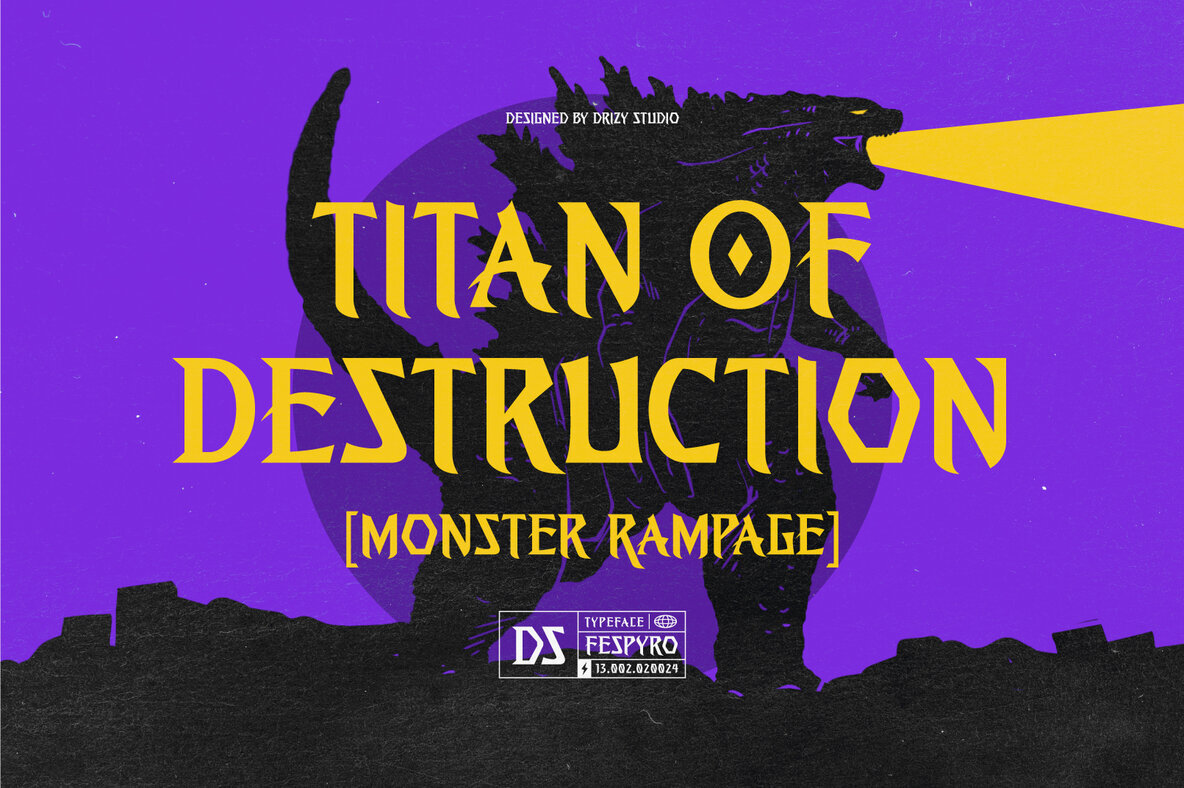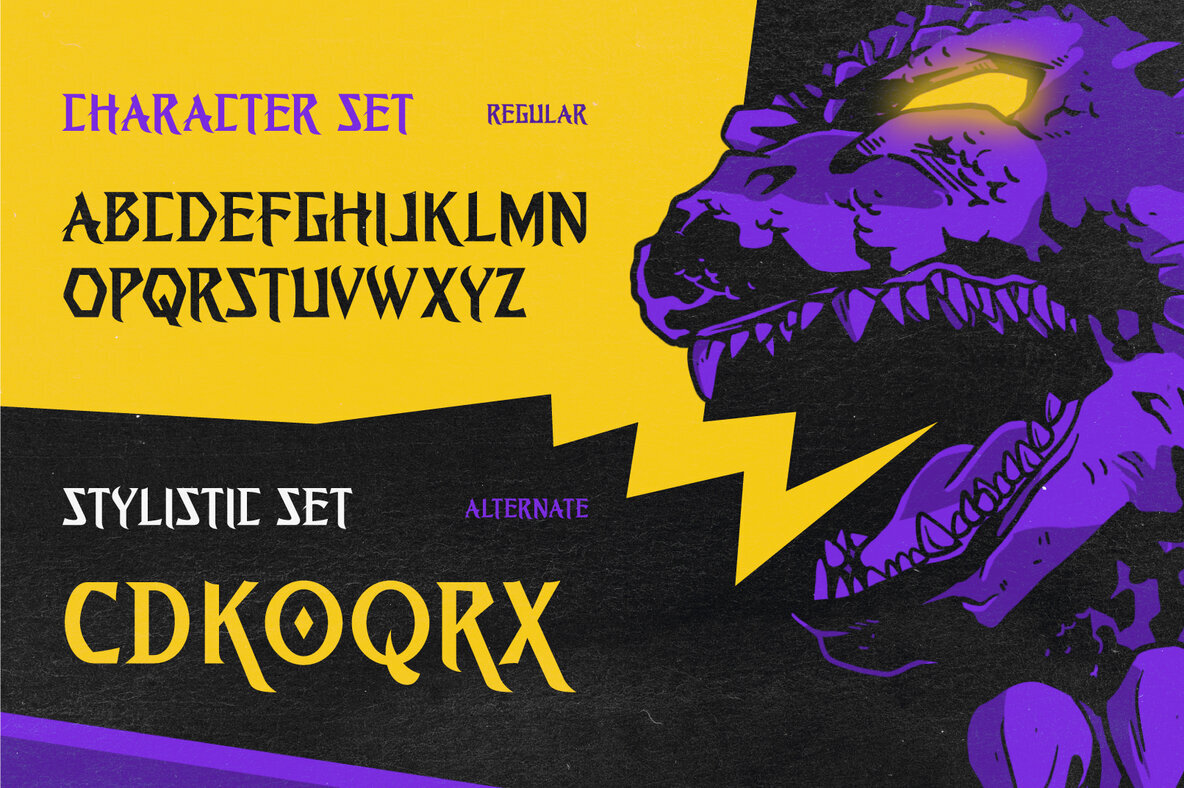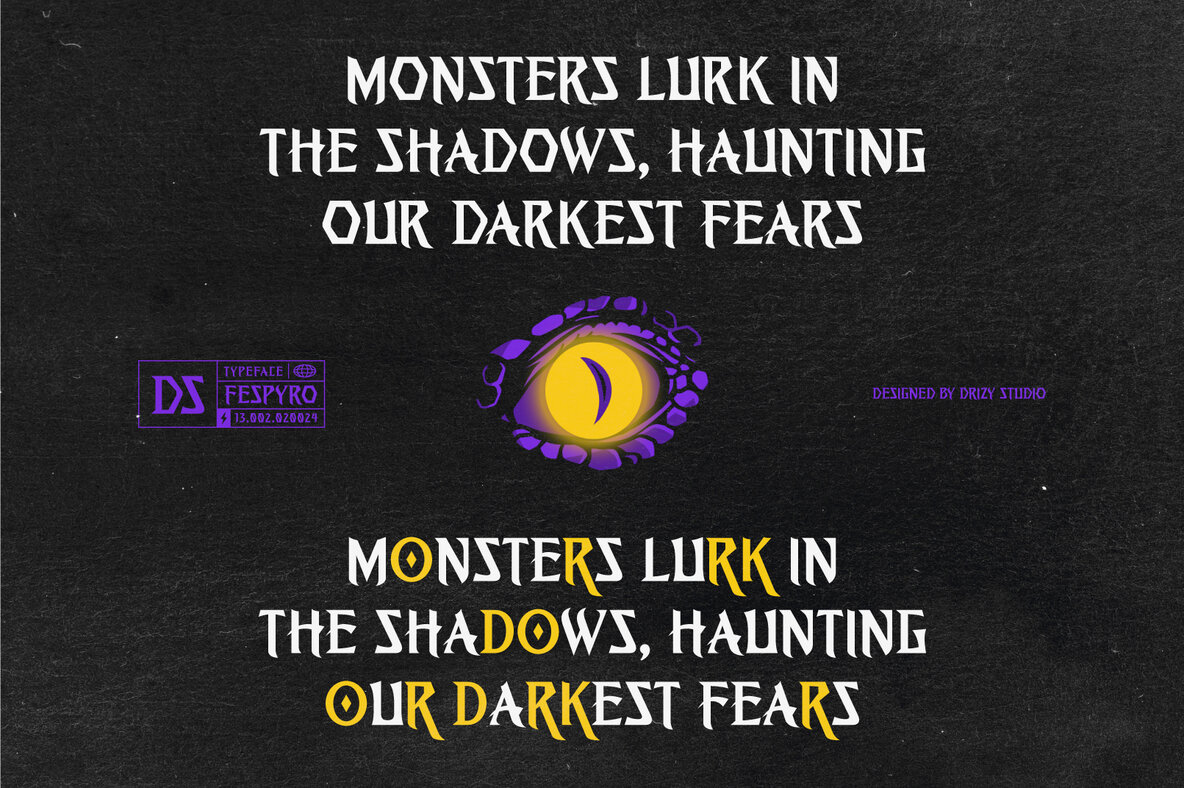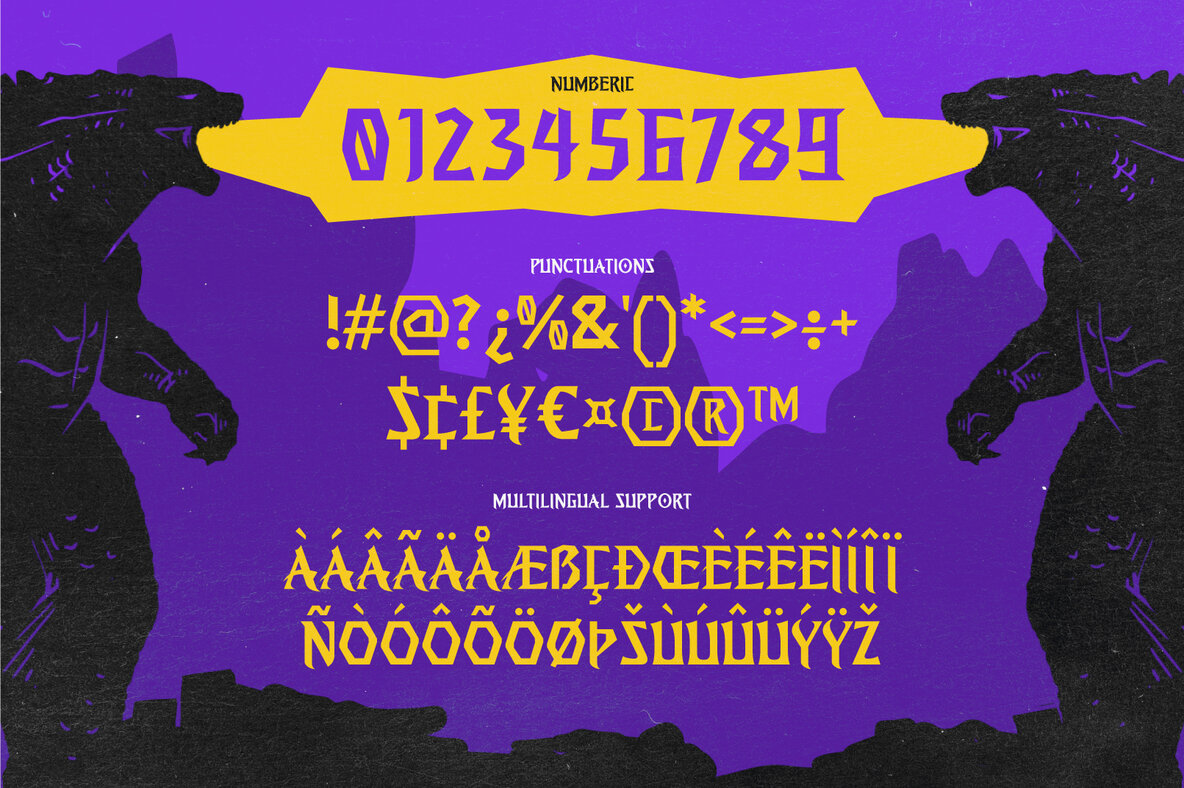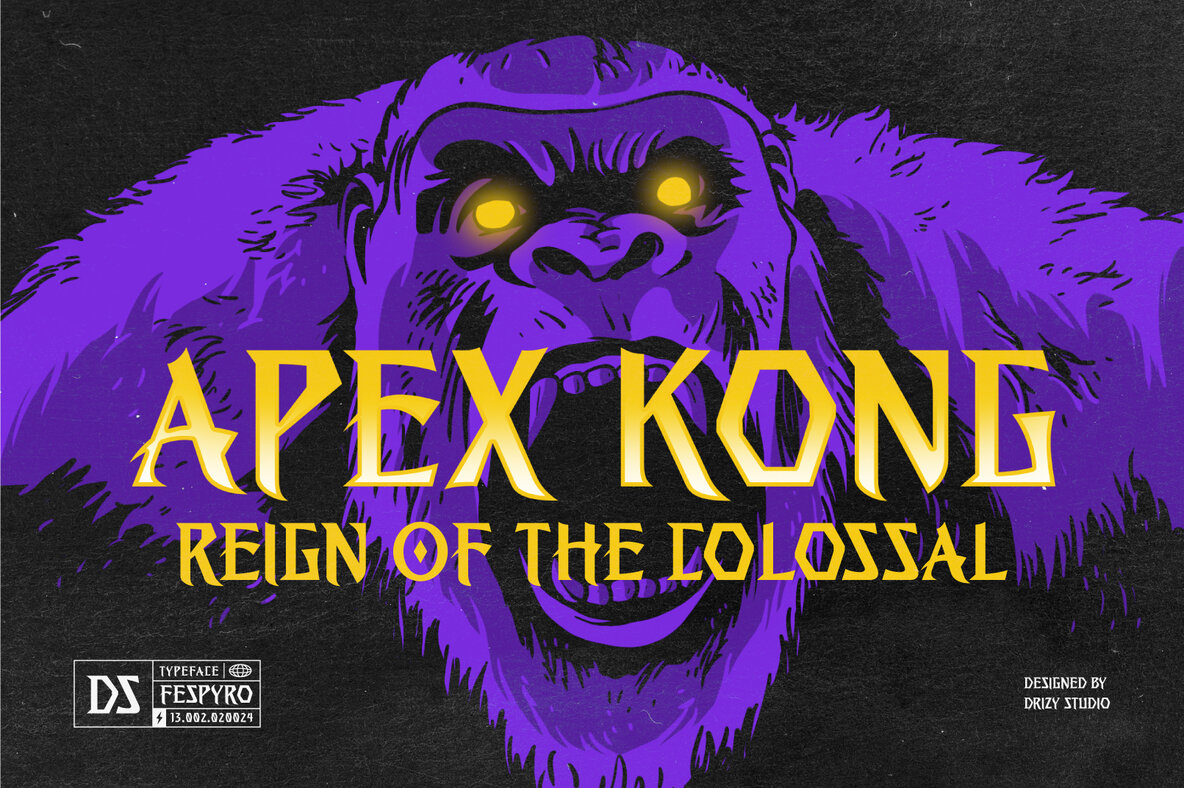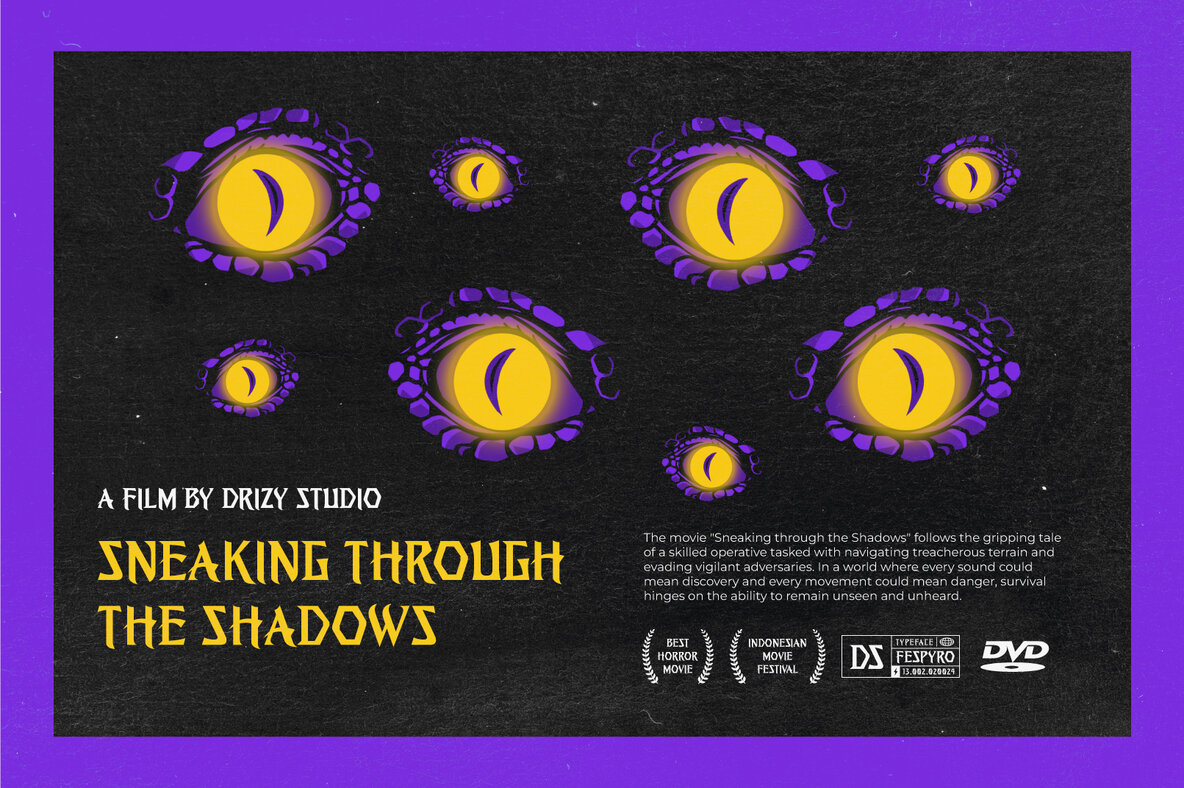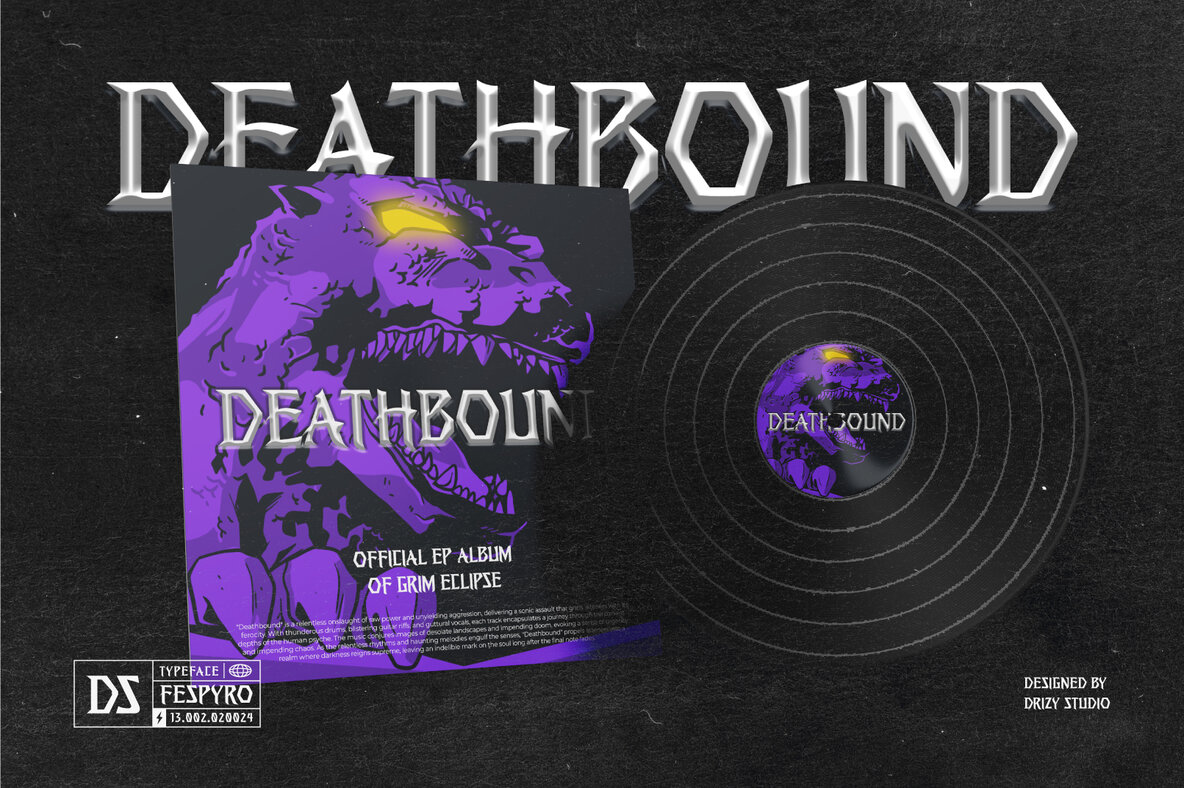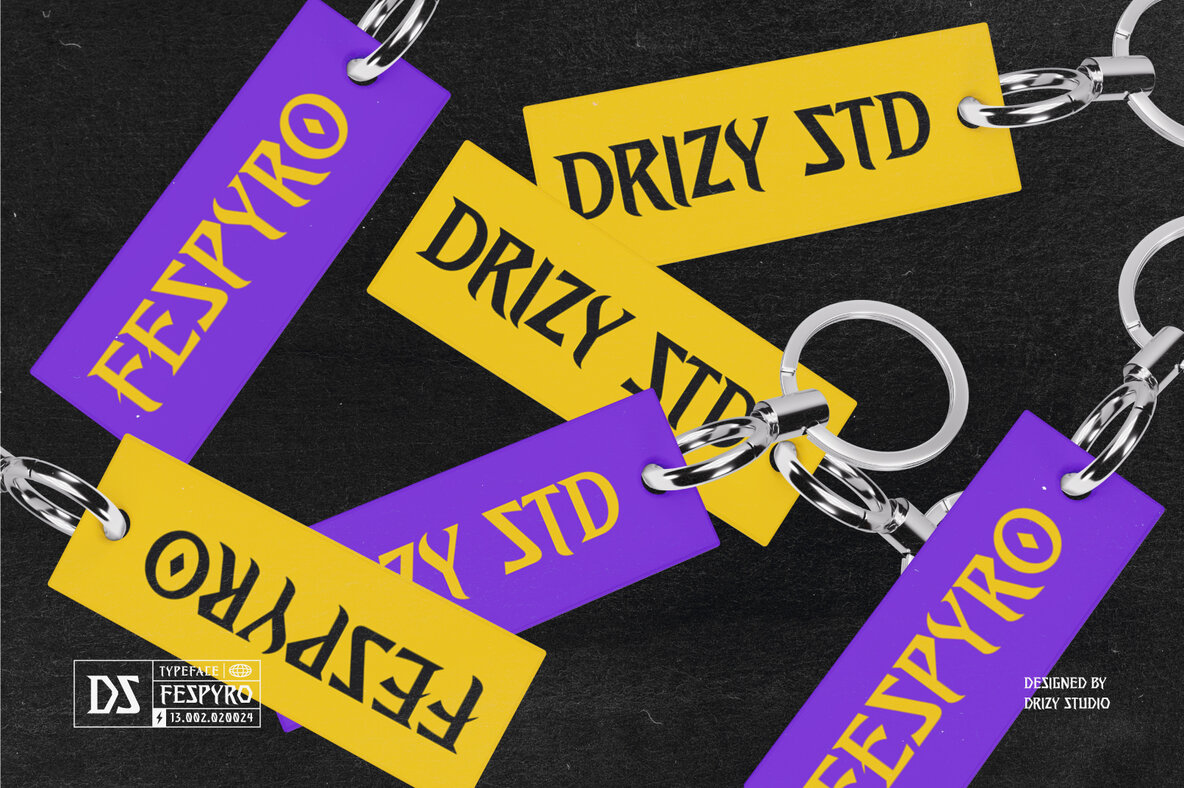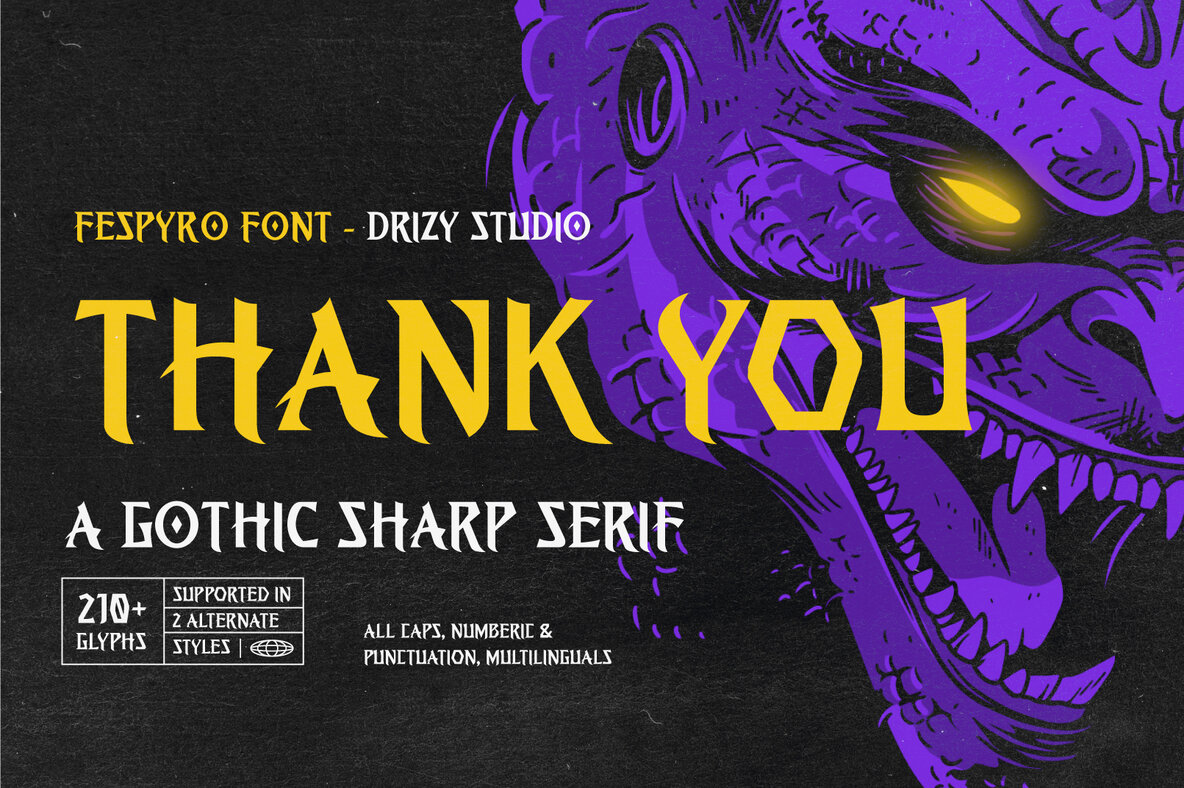
Fespyro Font
Fespyro Regular
Fespyro is a Gothic sharp serif font designed to infuse your projects with a haunting and chilling atmosphere. Perfectly suited for Monster & Kaiju themes, horror movie posters, and eerie book covers, this font evokes a sense of suspense, mystery, and horror. Its sharp serifs and bold design make it an ideal choice for any project that demands a macabre touch.
Fespyro includes a comprehensive character set, punctuation, numbers, multilingual support, and alternates to offer versatile design options. Whether you're working on a graphic novel, a chilling promotional banner, or a spooky event invitation, Fespyro provides the tools you need to create a spine-tingling experience.